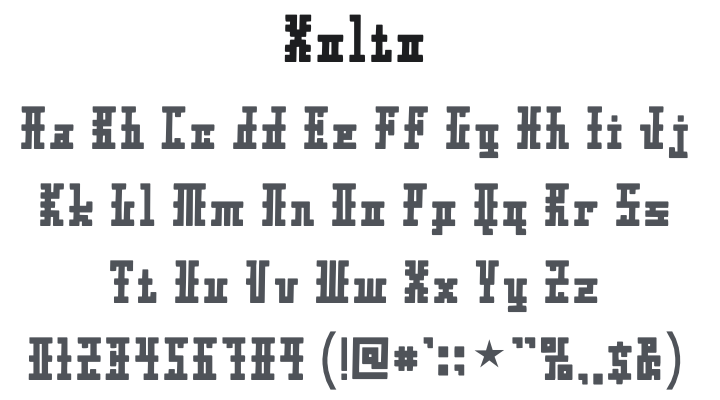
Xolto Font
About Xolto
Xolto is a bold, blocky pixel-grid display typeface with a retro gaming aesthetic — chunky, geometric letterforms constructed with uniform stroke widths that feel straight off an early 1990s video game screen. The author describes it as "designed for eviction notices," giving it an unexpectedly deadpan bureaucratic authority. Perfect for retro game titles, pixel-art projects, tech posters, and any headline needing bold, no-nonsense digital weight.